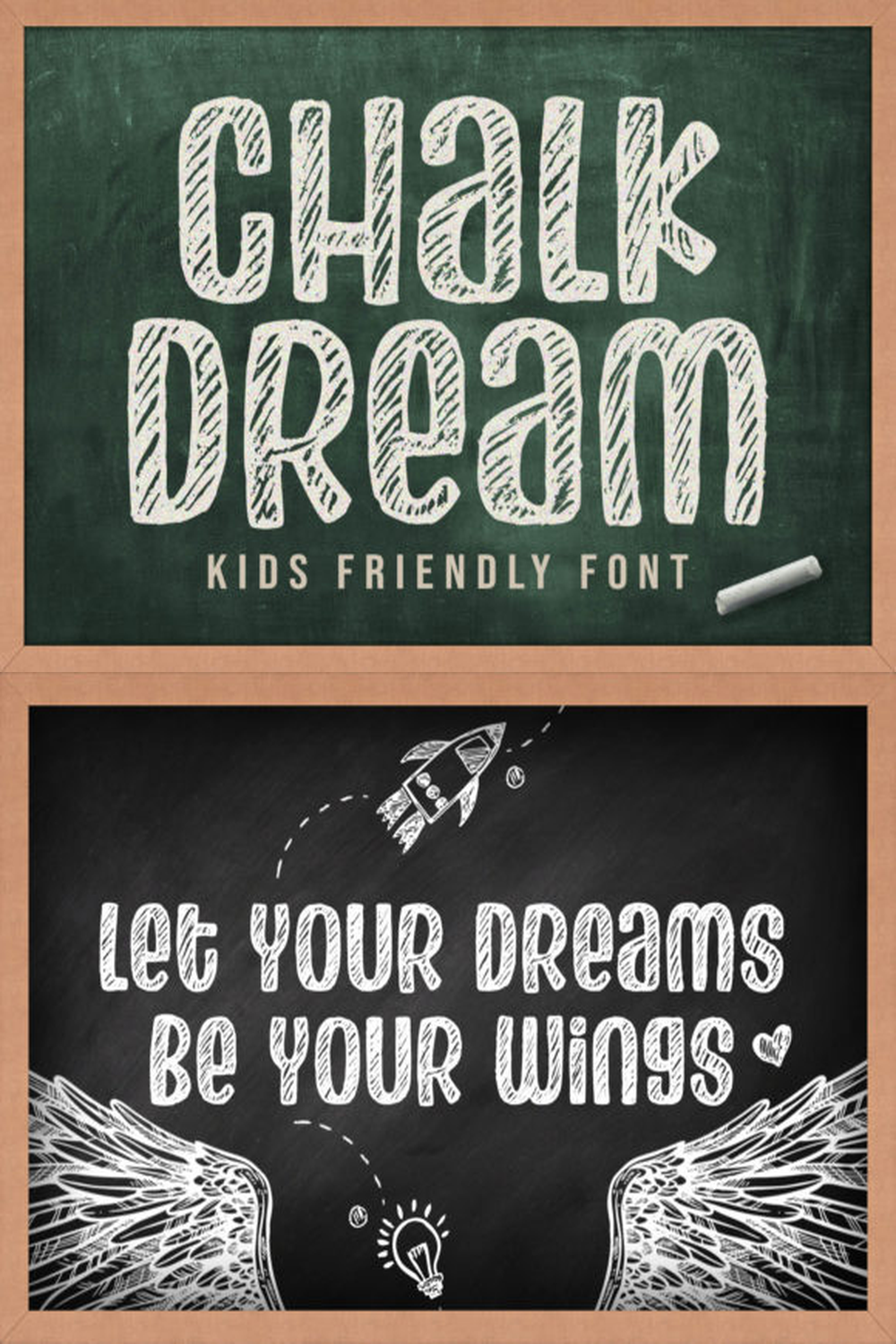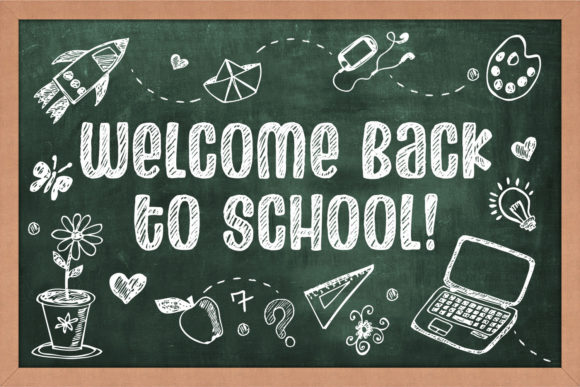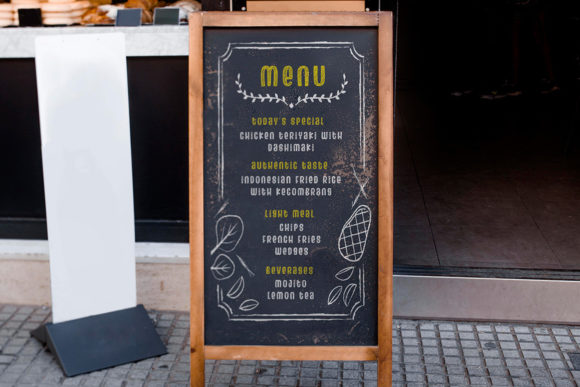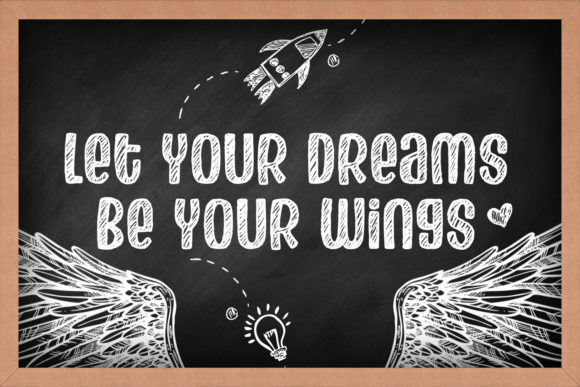
Chalk Dream Font: A Playful Display Font for Cute DIY Projects!
About the Chalk Dream Font
The Chalk Dream Font offers a perfect balance of form and function for your design needs. Chalk Dream is a bold, fun and useful display font. Whether you use it for cartoon related designs, children games or just any creation that requires a lovely touch, this font will be an amazing choice.
Chalk Dream Font Usage Examples